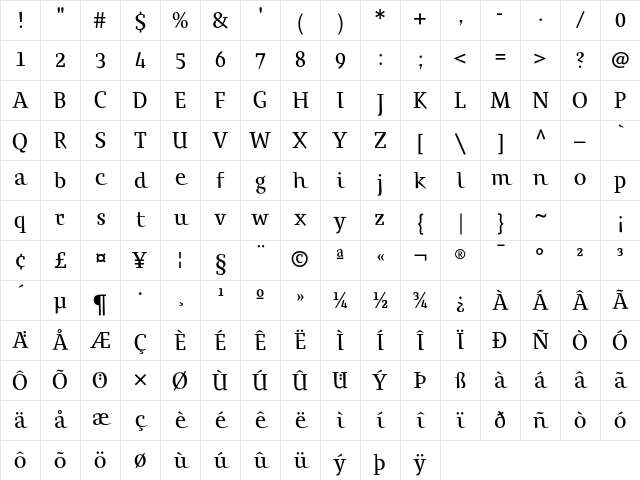
KeuleOldStyleEF Regular
Design Context for KeuleOldStyleEF
KeuleOldStyleEF carries the refined structure of traditional serif typography, with bracketed terminals and considered proportions that communicate credibility and craft.
Pro Tip: Use KeuleOldStyleEF for editorial body copy and considered headline work. Pair with a neutral sans for UI elements or captions to create a classic hierarchy.